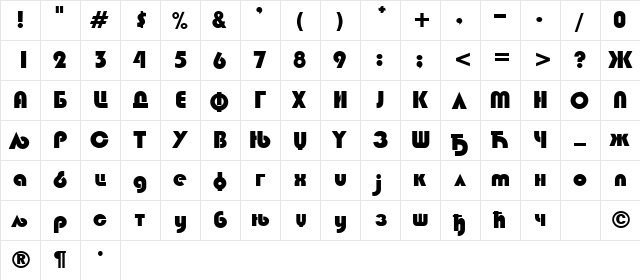
Hippo Cirilica Bold
Design Context for Hippo Cirilica Typeface
Hippo Cirilica is a composed and adaptable typeface that performs quietly and consistently across a wide range of design contexts. The heavy weight commands attention and anchors typographic hierarchies.